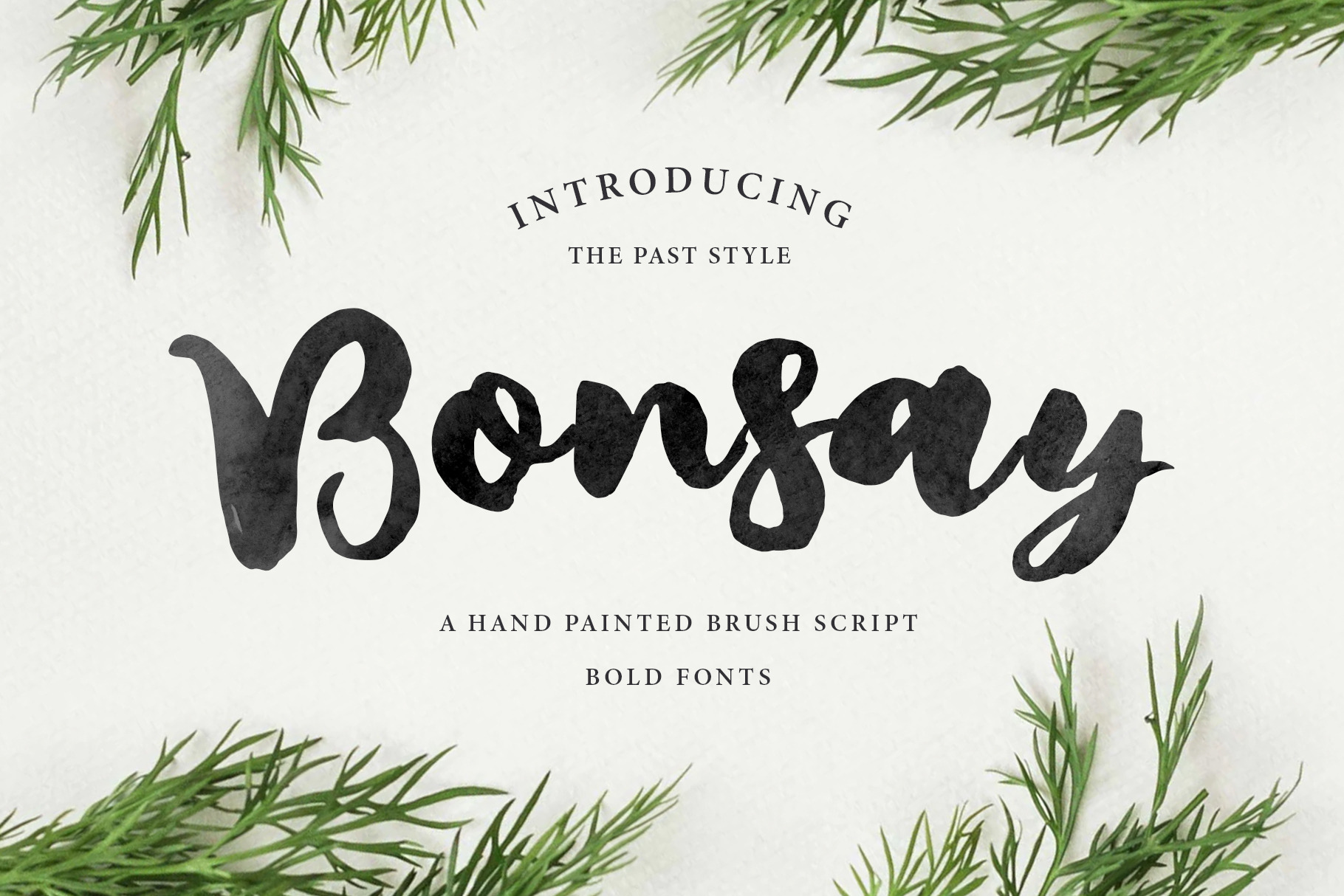
Bonsay Brush Fonts
Say hello to Bonsay!
A bold and beautiful brush lettered fonts. This is a GOOD QUALITY FONTS! Perfect for using in ink or watercolour based designs or on its own as bold hand brushed lettering!
Use it for websites, branding, weddings, social media, product design, stationery and advertising, etc | Bonsay is versatile enough to add that natural nuance to any project where you need that to look like real.